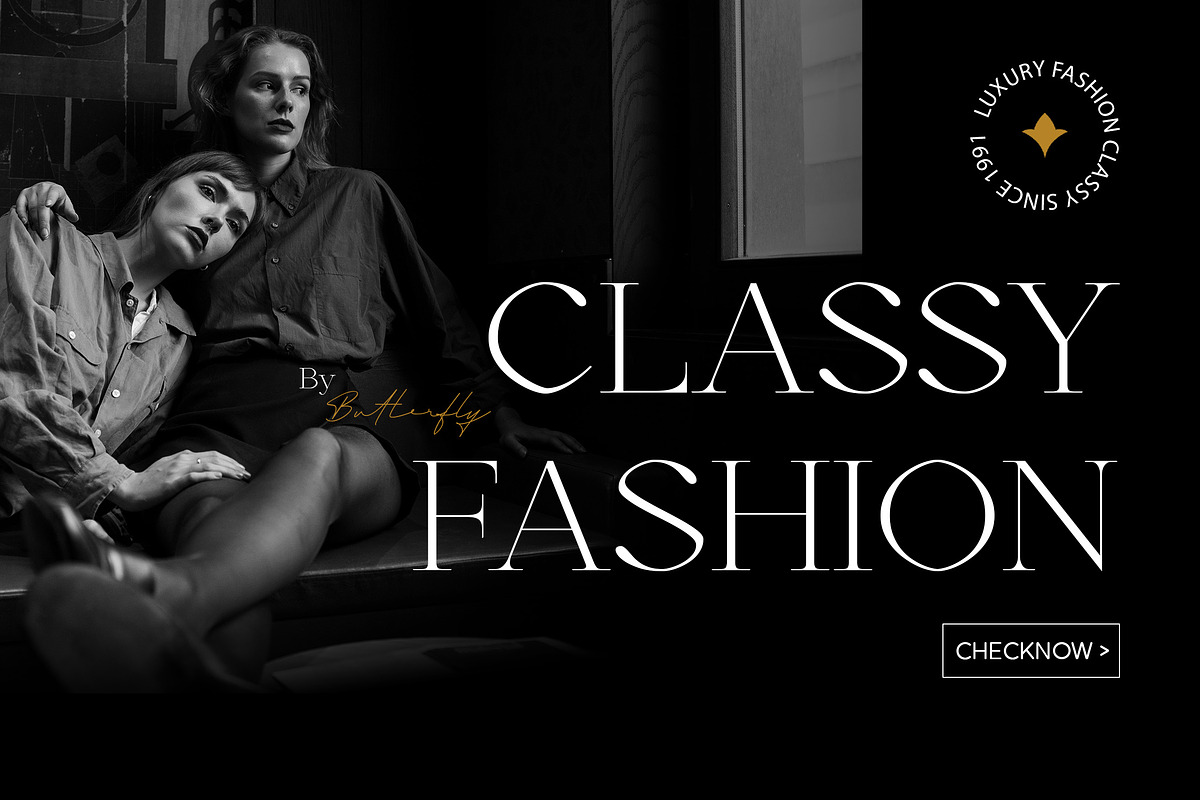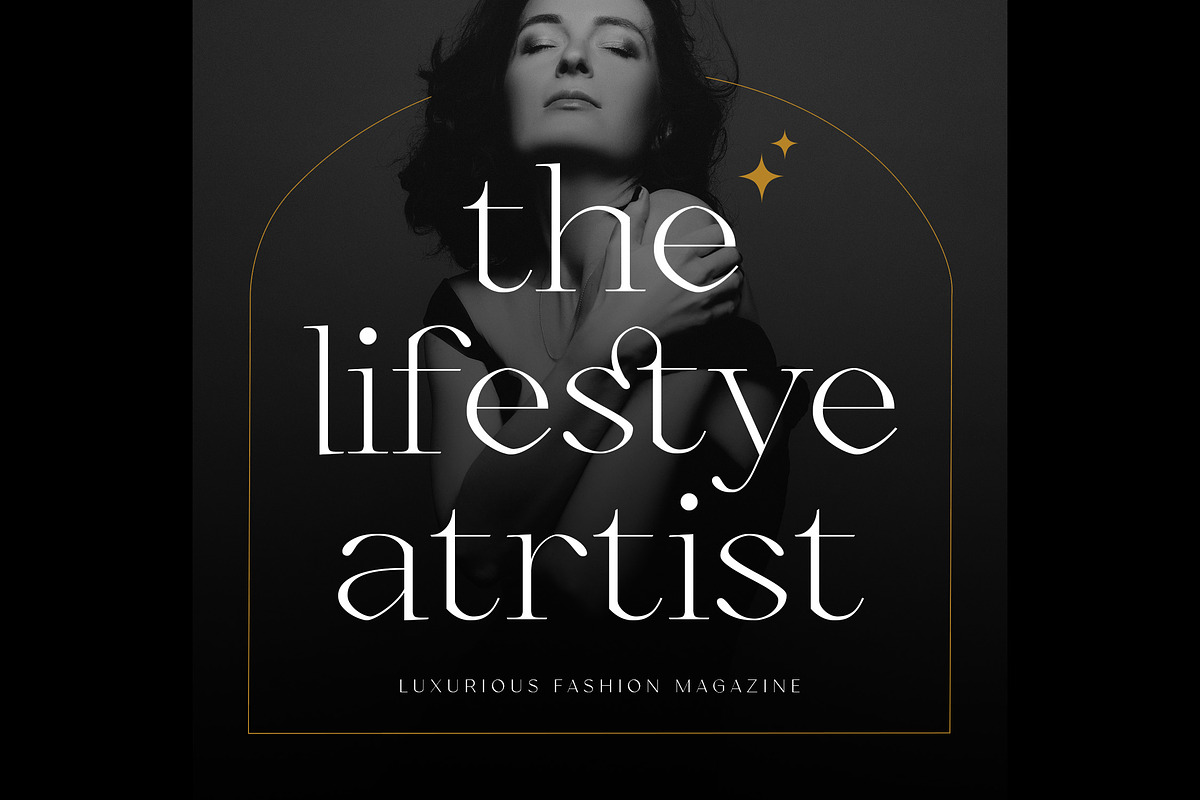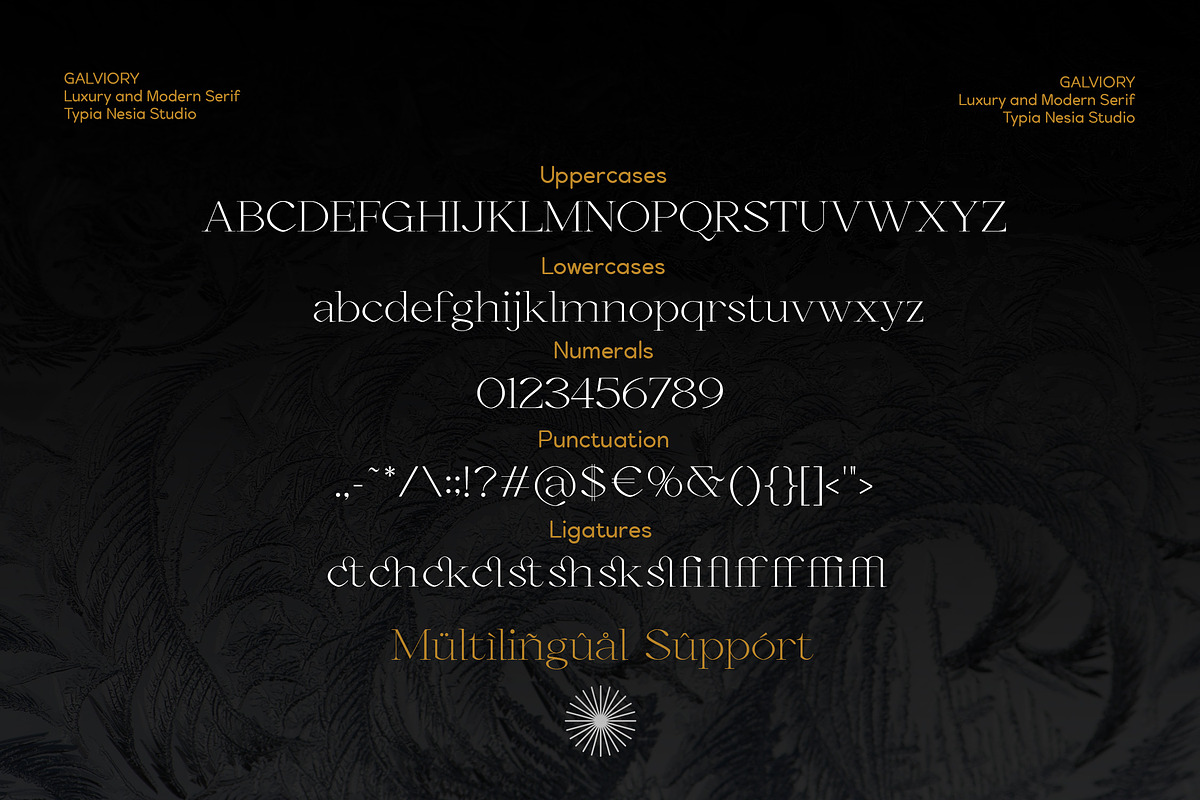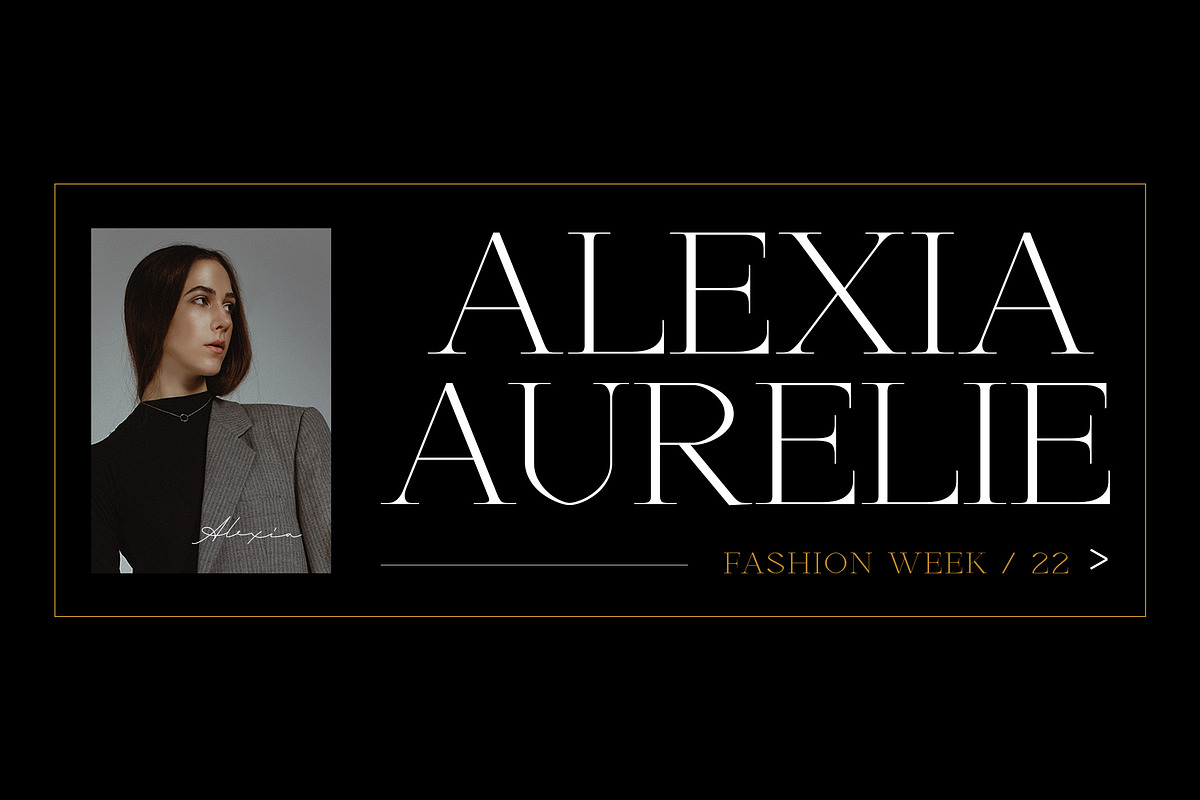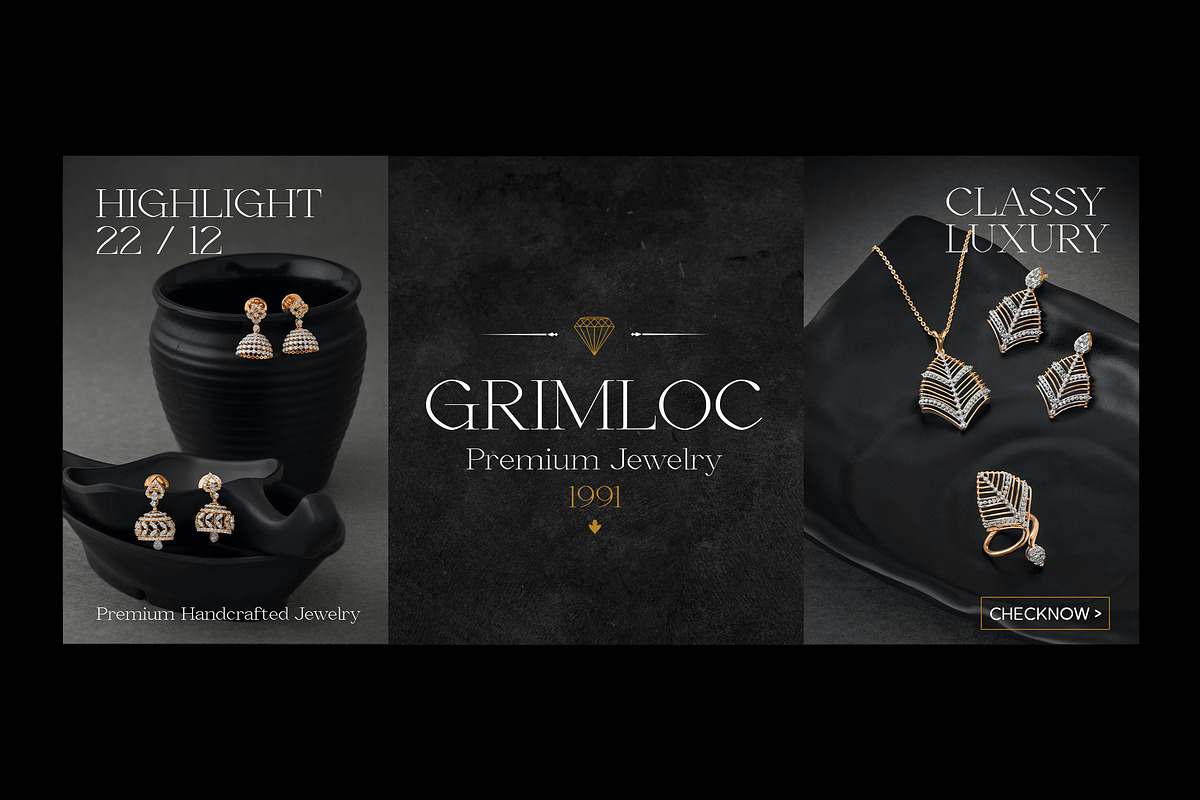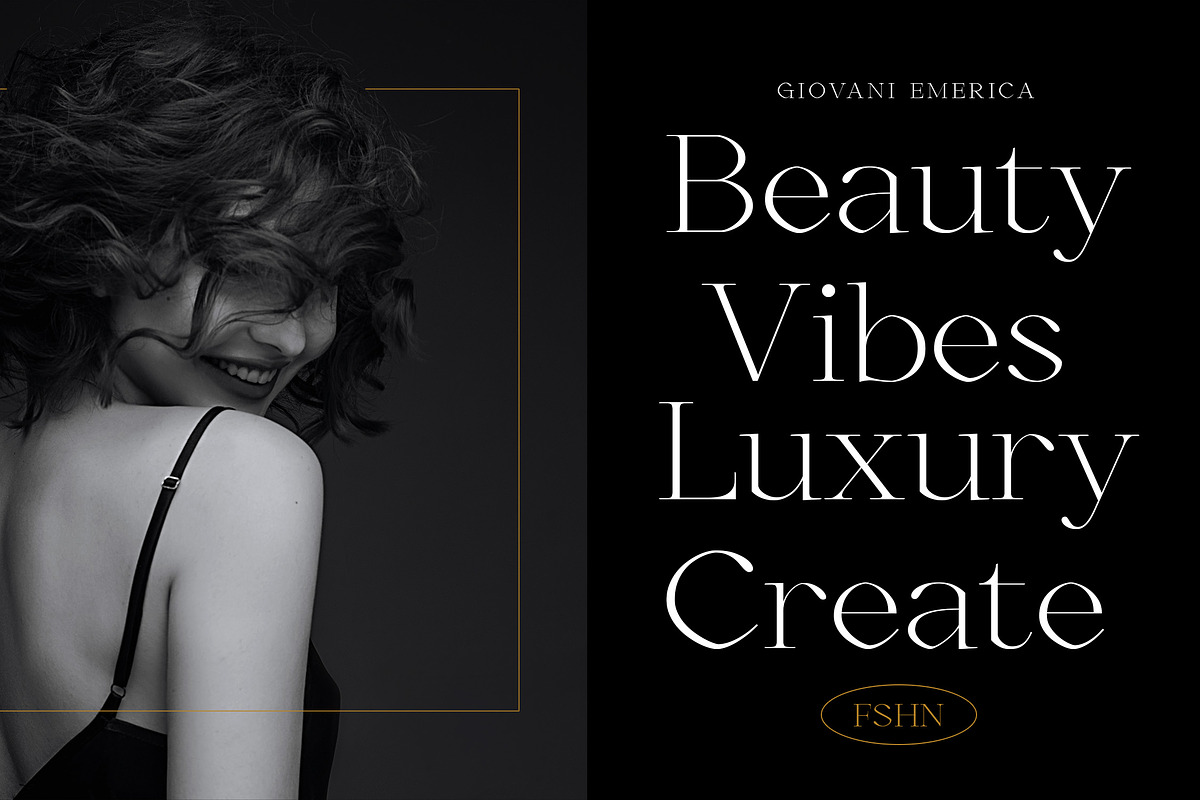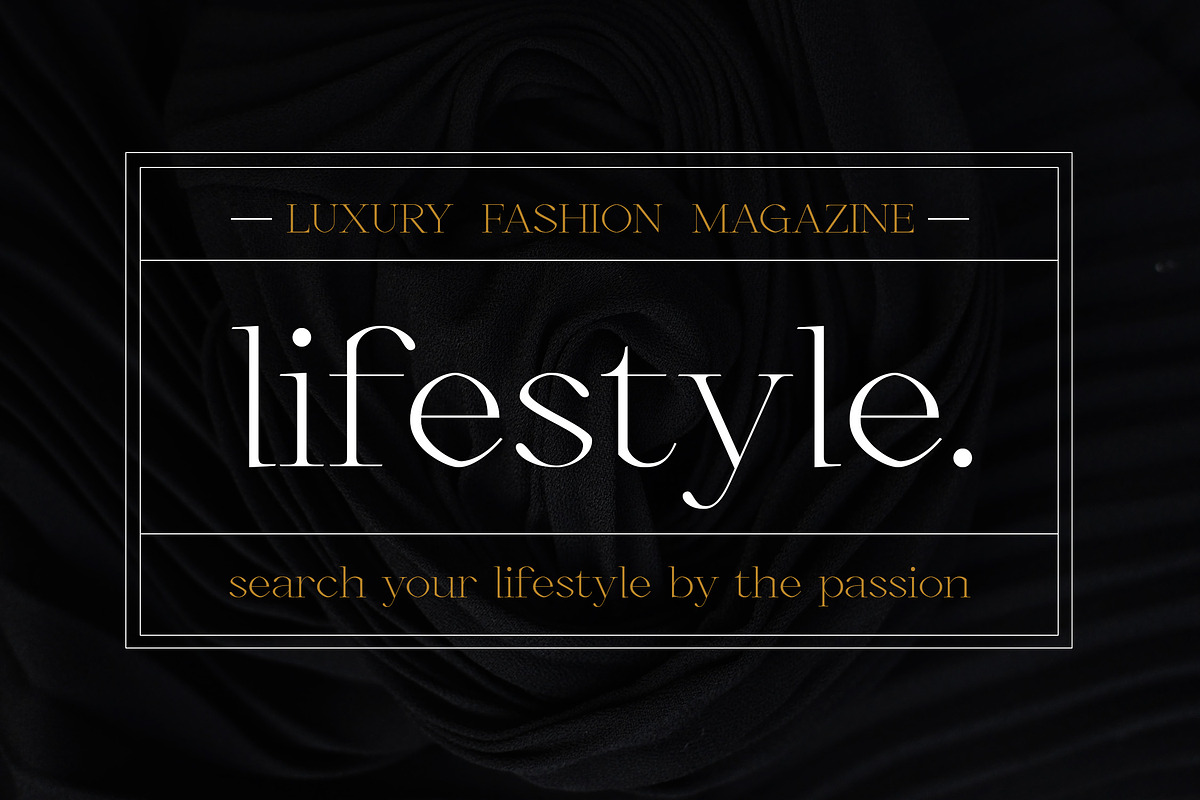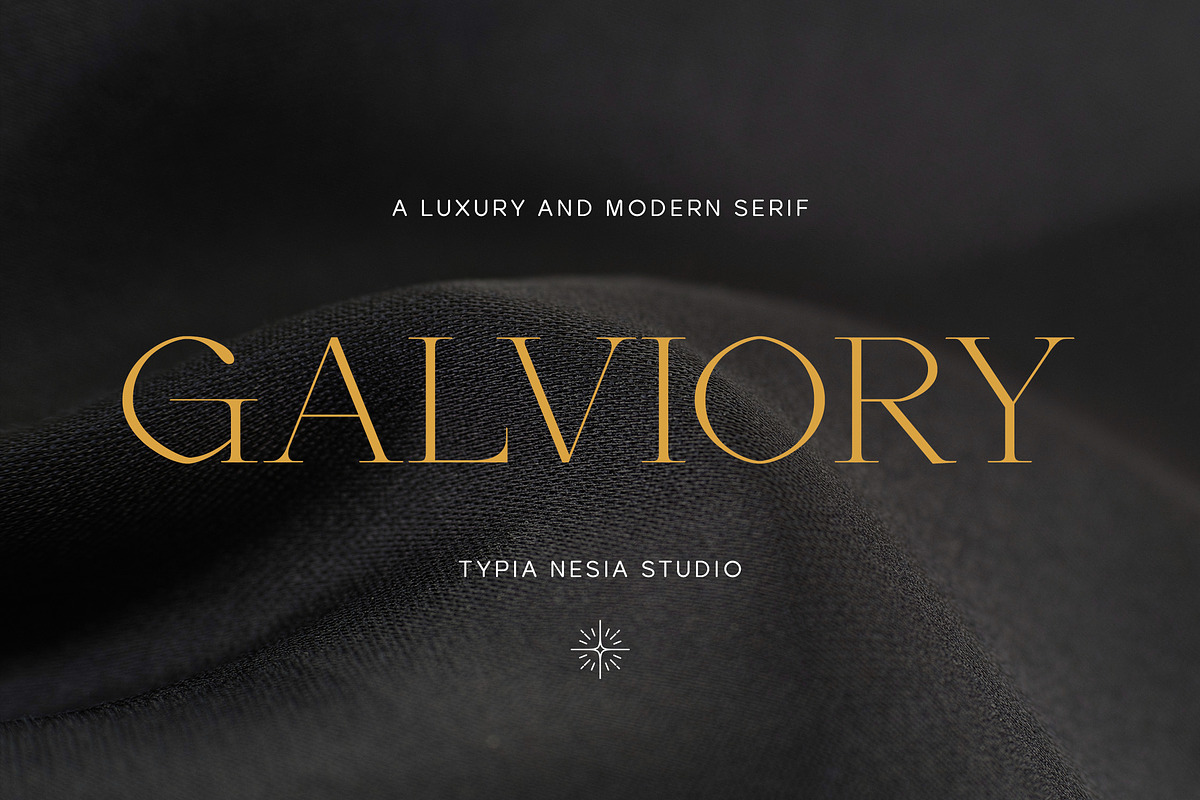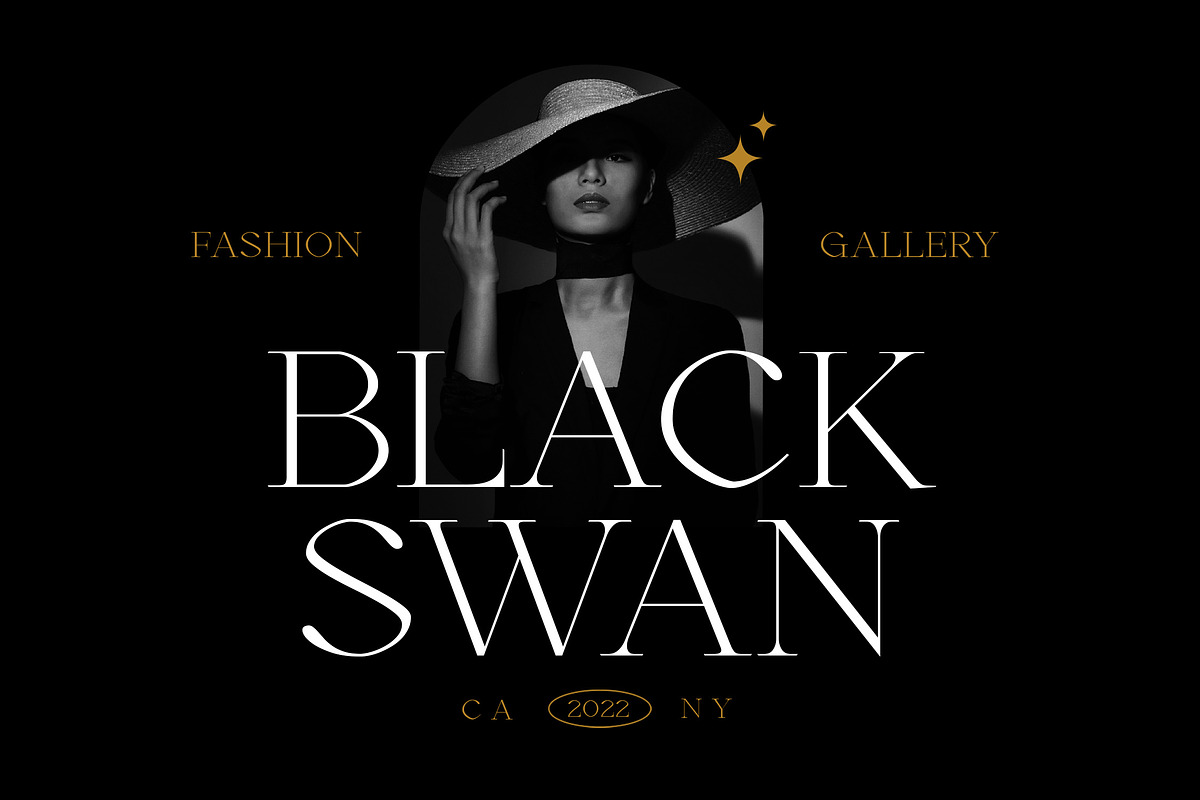
Galviory - Modern Serif
Galviory - Luxury Elegant Classy Modern Expressive Serif - Logo Branding Font
Galviory Elegant Modern Serif font is perfect for your up coming projects. Such as luxury logo and branding, classy editorial design, woman magazine, cosmetic brand, fashion promotional, art gallery branding, museum, historical of architectural, boutique branding, stationery design, blog design, modern advertising design, card invitation, art quote, home decor, book/cover title, special events and any more.